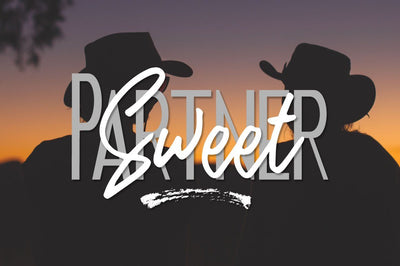
Sweet Partner Brush
Sweet Partner Brush is handmade signature style font with stunning characters. Ideal for logos, name tag, handwritten quotes, product packaging, merchandise, social media & greeting cards. It contains a full set of lower & uppercase letters, a large range of punctuation, numerals, and multilingual support.